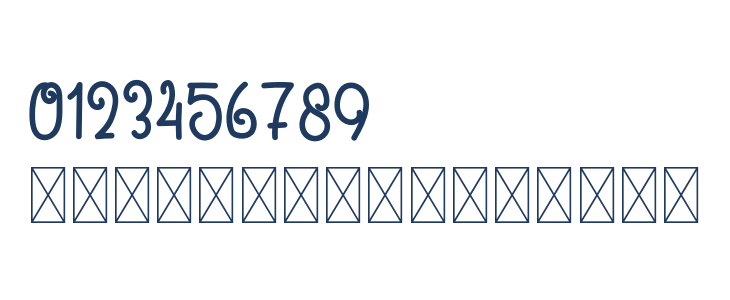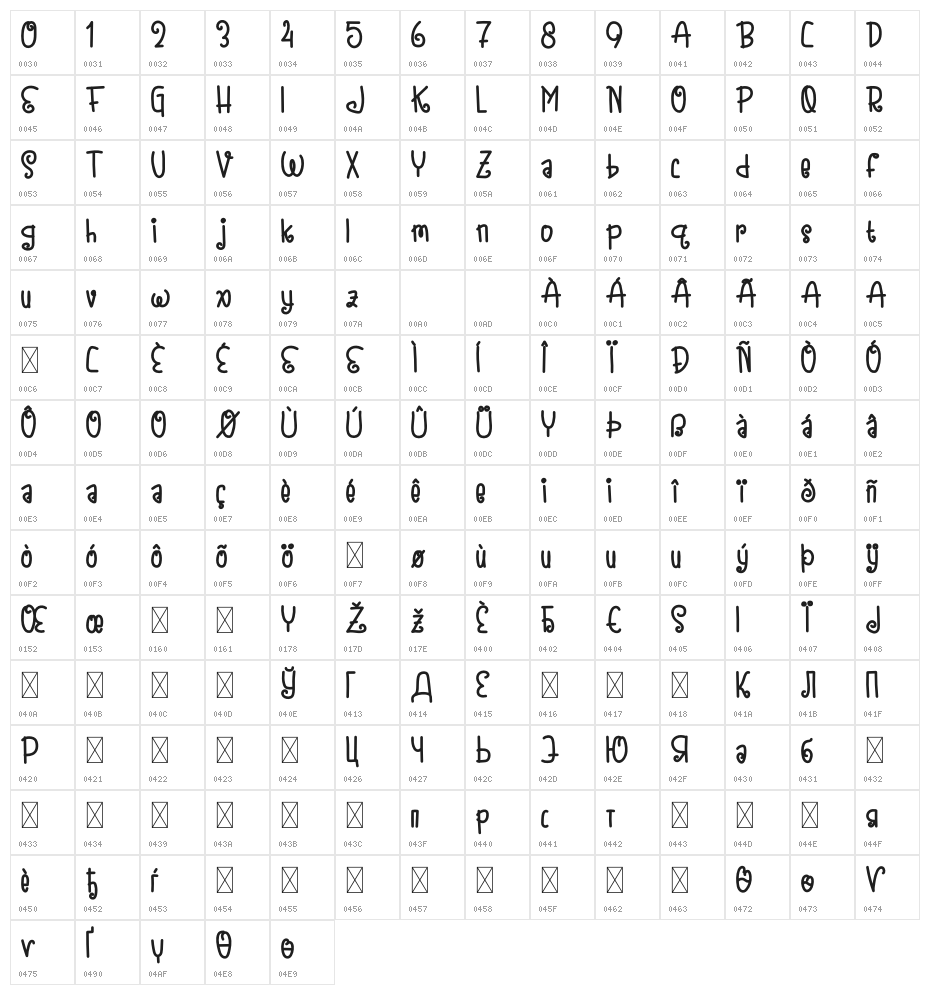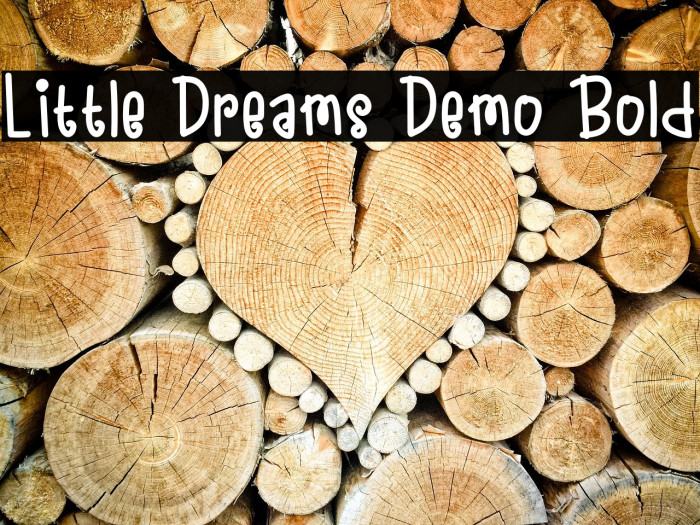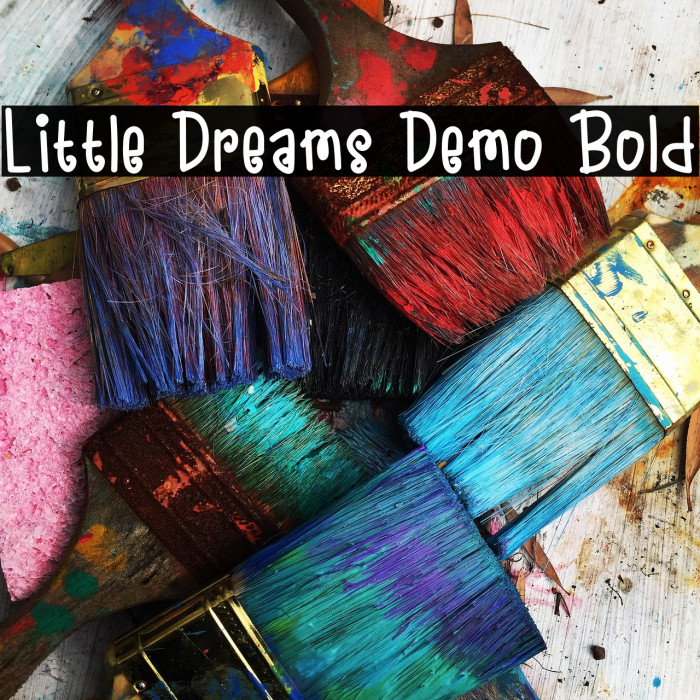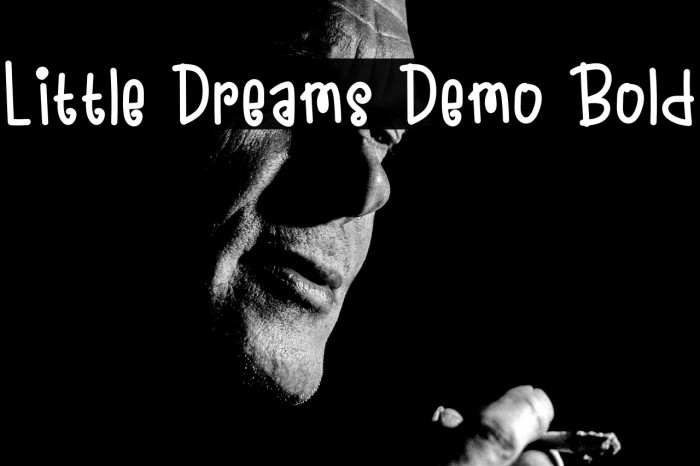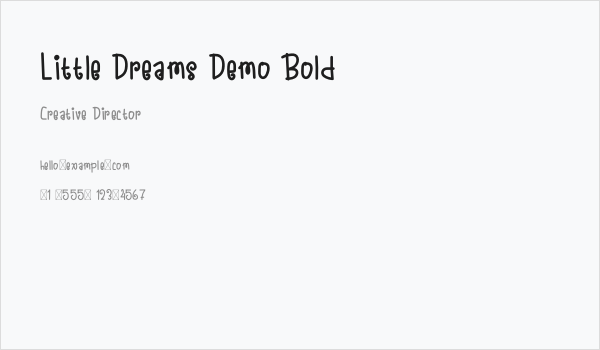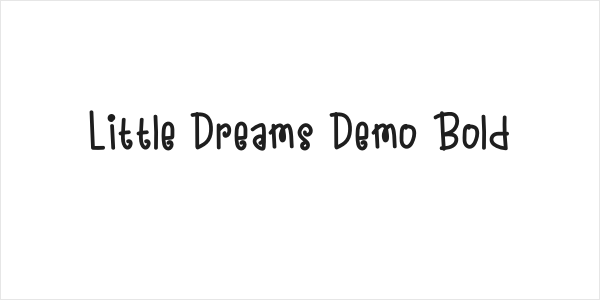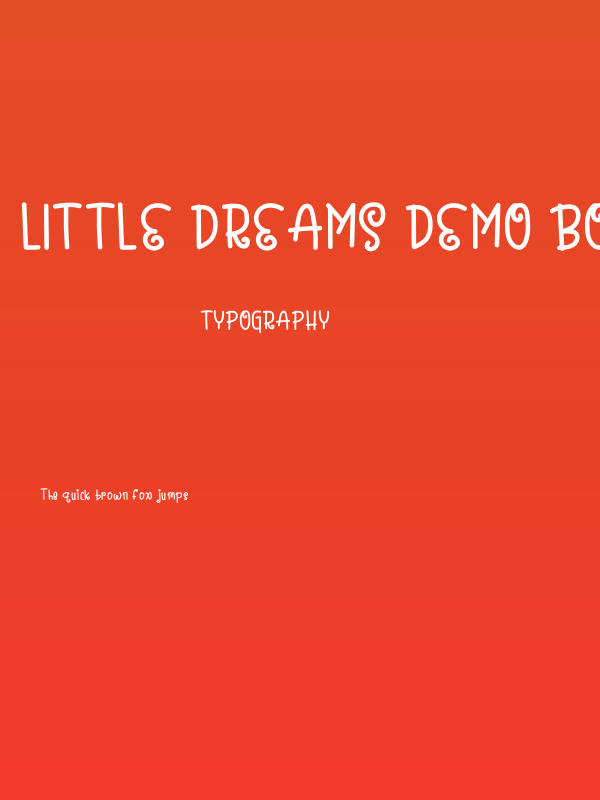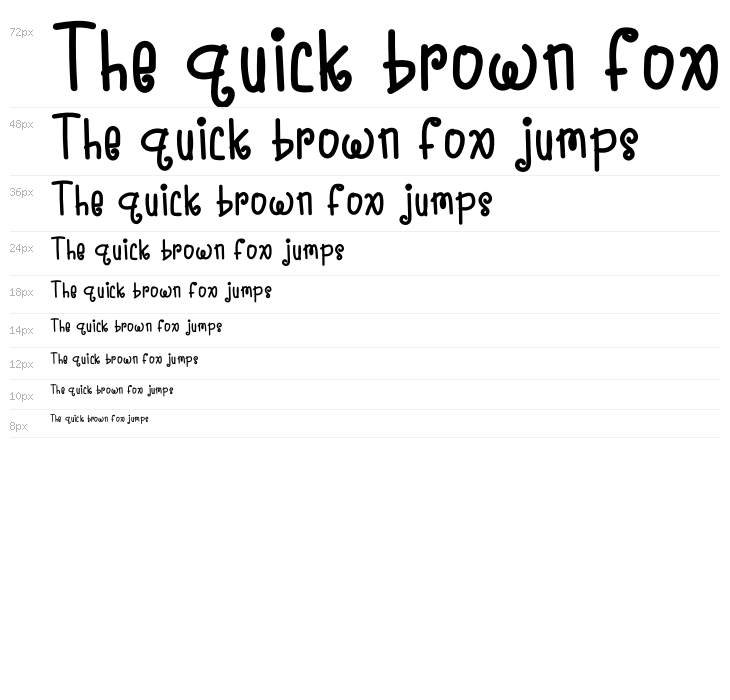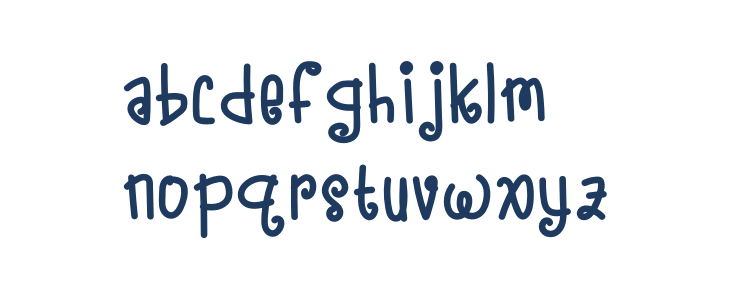
Little Dreams Demo Bold Font
Little Dreams Demo Bold Description
This playful and whimsical font features a bold and rounded style with a hand-drawn appearance. The characters are slightly irregular, adding a charming and informal touch. The uppercase and lowercase letters maintain a consistent style, with some letters featuring unique loops and curls that enhance the font's playful nature. The numbers are equally bold and rounded, fitting seamlessly with the overall design. This font is ideal for projects that require a fun and friendly aesthetic, such as children's books, greeting cards, or playful branding.
| Use Case | Headlines, Logos, Decorative text |
| Proposed Projects | Ideal for children's books, playful branding, greeting cards, and creative projects. |